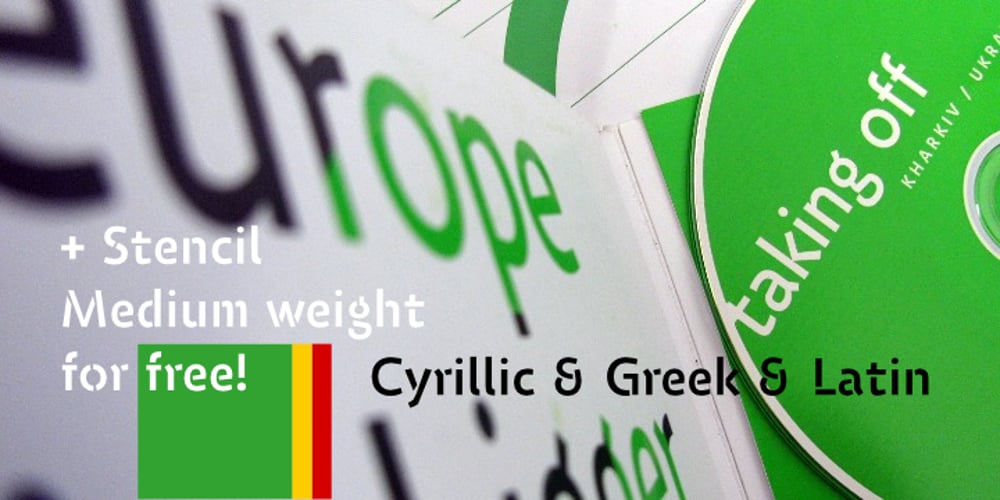
ZionTrain Pro Font Family was designed by Andrij Shevchenko and published by AndrijType. ZionTrain Pro contains 15 styles and family package options. Originally ZionTrain was built as a (probably first in Cyrillic!) navigation typeface for the Kharkiv identity project and Kharkiv subway and airport navigation systems. We wanted comprehensible, distinctive letterforms, that can help everybody on the way from Babylon to Zion. The project was used in Kharkiv promotion at homeland and abroad, but was rejected by the new government. As a corporate typeface it was used for a few cultural projects. Now it is equipped with Slavic Cyrillic and Monotonic Greek and has special Stencil faces especially for low-budget navigations (don’t forget to get your own Stencil Medium for free!).